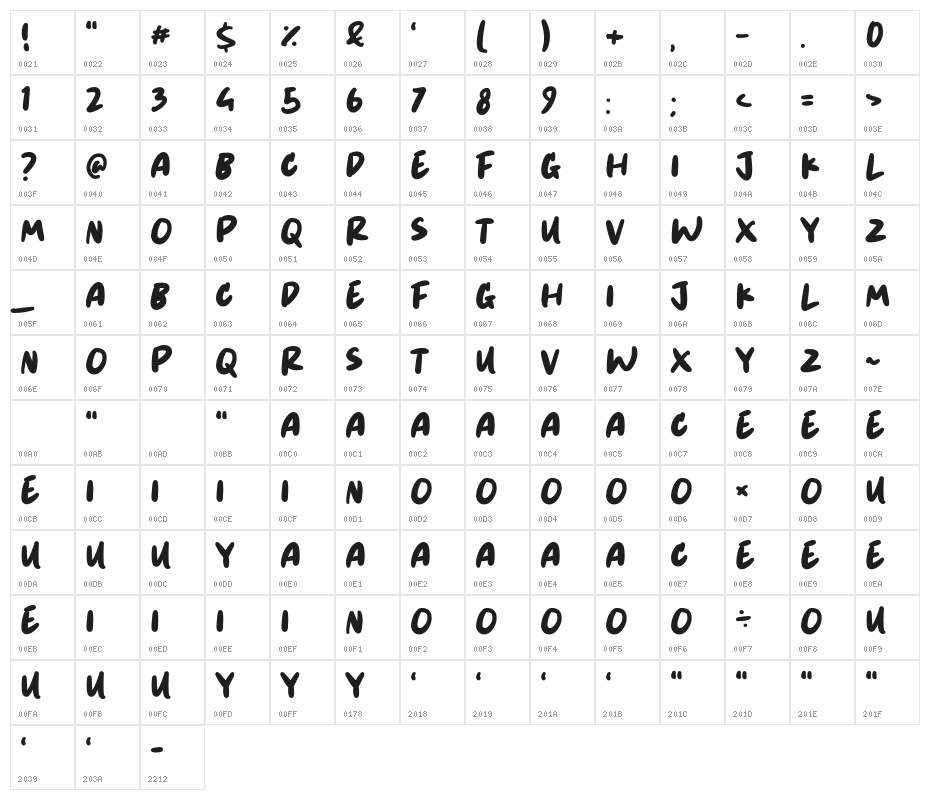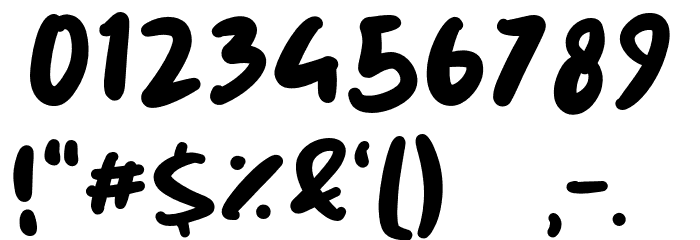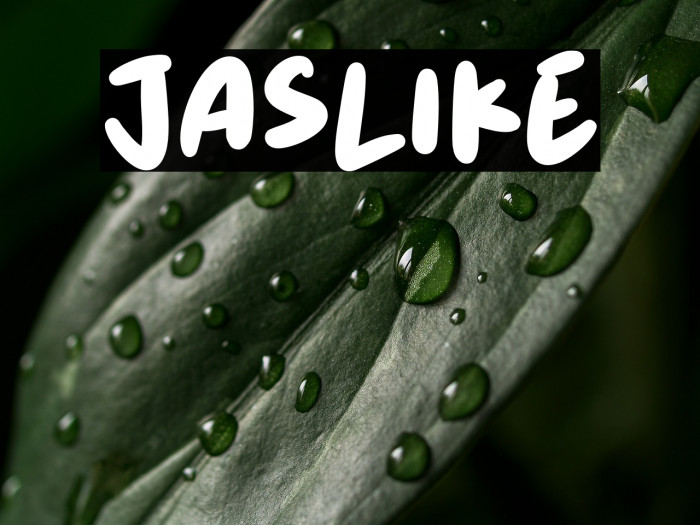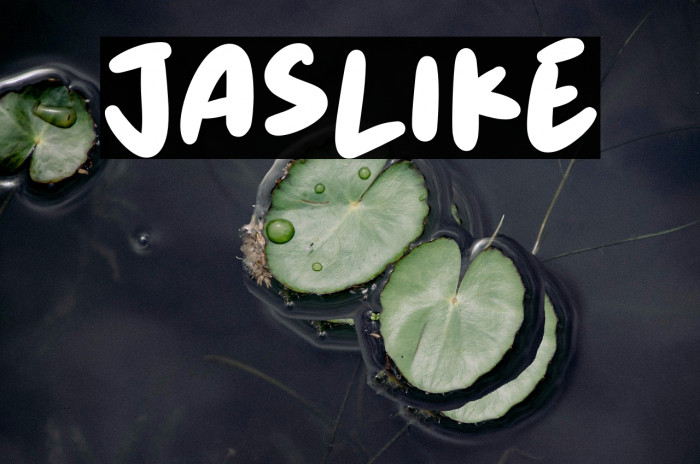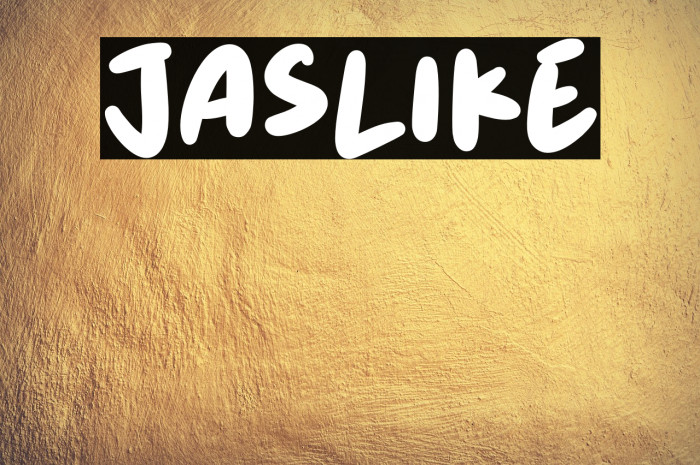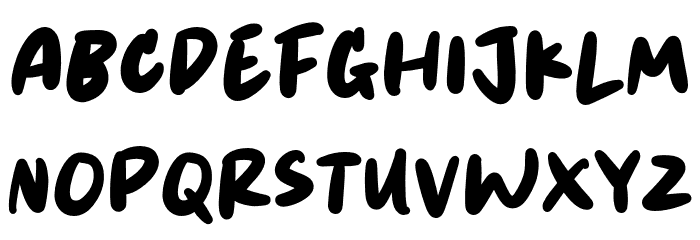
Jaslike Font
Jaslike Description
This font features a bold and playful handwritten style, characterized by its rounded and slightly irregular letterforms. The strokes are thick and consistent, giving it a strong presence. The uppercase and lowercase letters maintain a cohesive look, with a casual and friendly appearance. The numbers and special characters follow the same design principles, ensuring uniformity across all glyphs. This font is ideal for projects that require a personal touch or a sense of informality, making it suitable for creative and artistic endeavors.
| Overall Style | Playful, Casual |
| Use Case | Headlines, Logos, Creative projects |
| Proposed Projects | Ideal for greeting cards, children's books, playful branding, and casual invitations. |